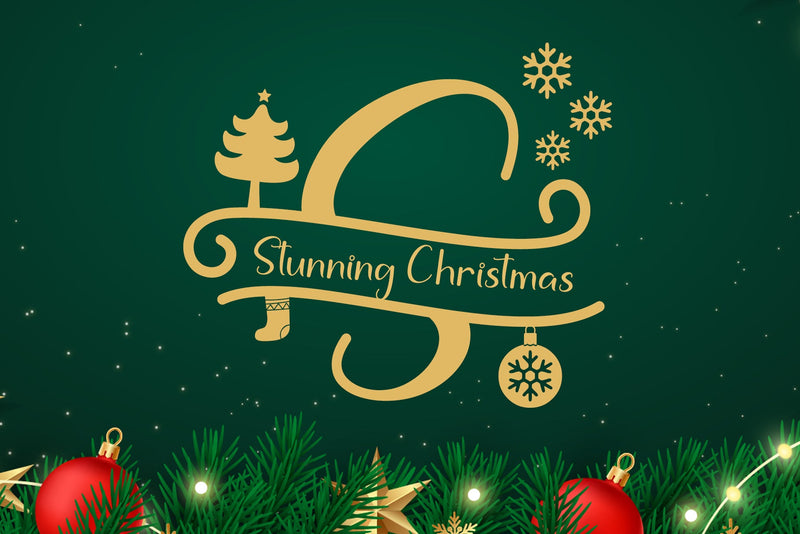
Stunning Christmas Monogram
Stunning Christmas Monogram is a stunning and comprehensive duo font (script and decorative), ideal for giving your projects a branded but friendly feel. The two included styles can be combined together perfectly but are also beautiful on their own.
Stunning Christmas Display Features :